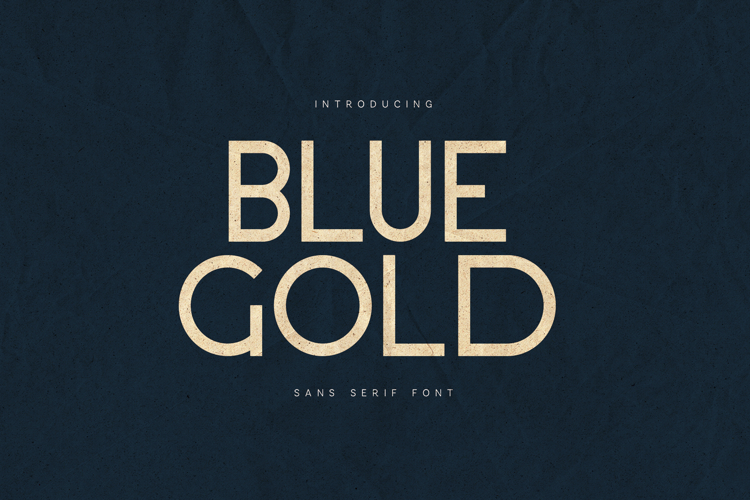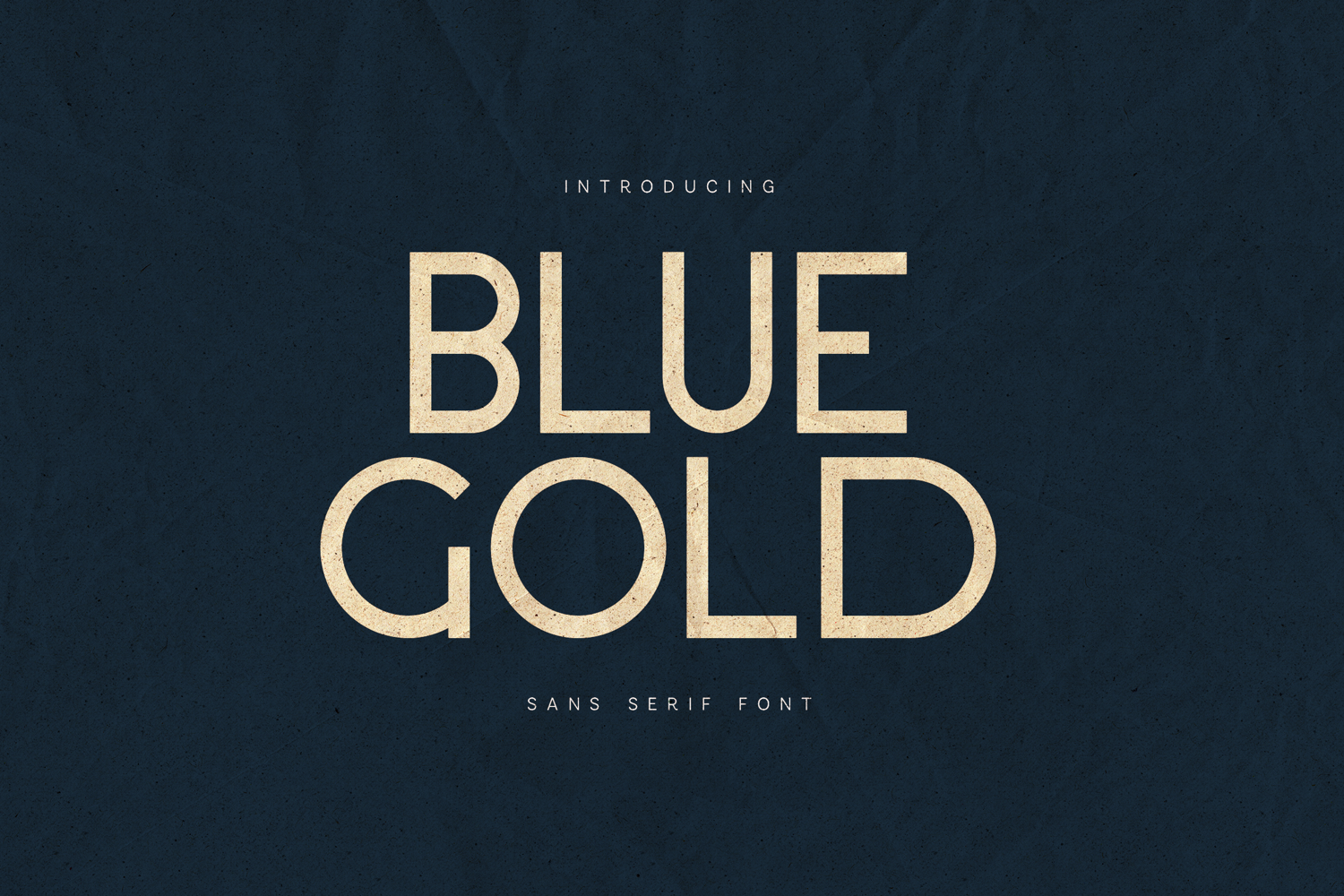
Blue Gold Textured Modern Sans Serif
Blue Gold is a modern sans serif font with a subtle textured finish, designed to feel bold, warm, and contemporary at the same time. Its clean geometric structure is softened by a grainy, organic texture, giving the font a tactile, human quality without sacrificing clarity or strength.
This font is perfect for branding, posters, headlines, packaging, editorial layouts, album covers, and modern visual identities that need a confident but approachable tone. Blue Gold performs exceptionally well at large sizes, where its texture and balanced proportions create strong visual impact.
With its minimalist construction and softened edges, Blue Gold bridges the gap between modern sans-serif precision and handcrafted character, making it highly versatile for both print and digital projects.